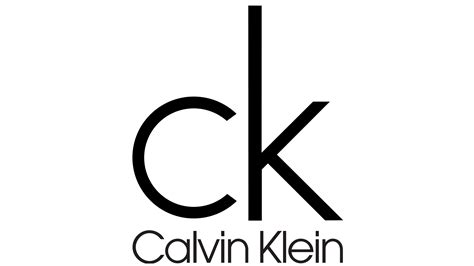
Calvin Klein Font. The calvin klein logo font consists of the brand name and the. Browse by alphabetical listing, by style, by author or by popularity.
Calvin klein Font is → ITC Avant Garde
Browse by alphabetical listing, by style, by author or by popularity. The lettering for both the monogram and the logotype is very similar. Try our text generator and create cool graphics for calvin klein font, then you can save the font. Download alternative calvin klein logo font. Calvin klein, the iconic fashion house founded by american. Web the time is now 07:24. Web calvin klein font generator & download is available free at fontbolt. Web download and enjoy this font from the link below. This version is free for personal use. The calvin klein logo font consists of the brand name and the.